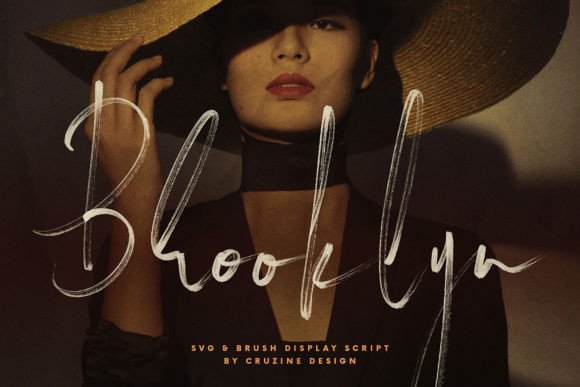
The Brooklyn Font: A Modern Brush Script that Packs a Punch
I’ll never forget the design project that led me to discover the Brooklyn font. I was working on a branding campaign for a trendy new coffee shop, and I needed a font that would capture the energy and style of the brand. After hours of scrolling through font libraries and trying out different combinations, I stumbled upon Brooklyn – a modern brush script font that instantly caught my eye. Its bold, confident strokes and cursive letterforms exuded a sense of contemporary cool that perfectly matched the vibe of the coffee shop.
An Honest Review: What I Love (and What to Watch Out For)
So, what makes Brooklyn such a great font? Here are a few things I love:
- ✨ Unique and eye-catching letterforms: Brooklyn’s cursive script and bold strokes make it stand out from more traditional fonts.
- ✅ Highly versatile: This font can work well for branding, packaging, editorial design, and more.
- 💃 Edgy, contemporary vibe: Brooklyn is perfect for designs that need a bit of attitude and style.
Of course, no font is perfect. Here are a few quirks to keep in mind:
- ⚠️ Legibility at small sizes: Brooklyn can be a bit tricky to read at very small sizes, so make sure to test it out before committing to a specific size.
- 🤔 Overuse of swashes: While Brooklyn’s swashes are beautiful, too many of them can make the text look cluttered and hard to read.
The Story Behind Brooklyn
Brooklyn is a font designed with the modern designer in mind. Its creator was inspired by the vibrant streets of Brooklyn, New York – a hub of creativity and self-expression. The font’s bold, confident strokes and unique details are meant to evoke the energy and style of the city.
| What is the best use for Brooklyn font? | Brooklyn is ideal for branding, packaging, and editorial design that demands a contemporary and edgy aesthetic. |
| Is Brooklyn a script font? | Yes, Brooklyn is a modern brush script font with cursive letterforms and unique details. |
| Is Brooklyn a difficult font to read? | Brooklyn can be a bit tricky to read at very small sizes, but it’s generally easy to read at larger sizes. |